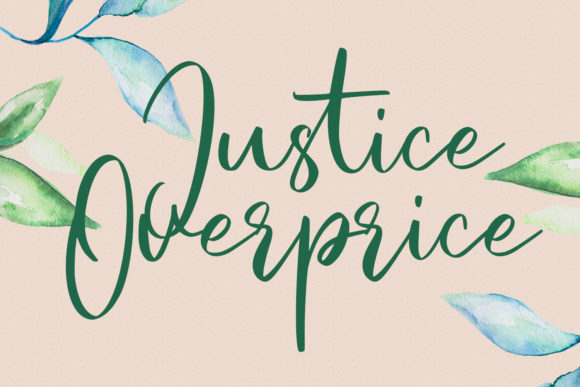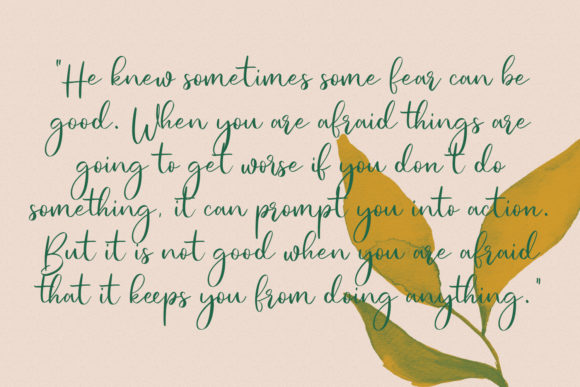
Jellylory Font
db-ku.com - Script & Handwritten -- Jellylory is a fancy handwritten script font. It features medium contrast strokes, fun characters, ligatures and alternates. Jellylory will add a joyful and romantic touch to each of your projects!